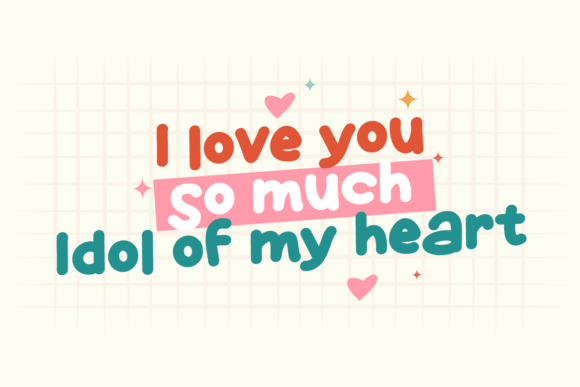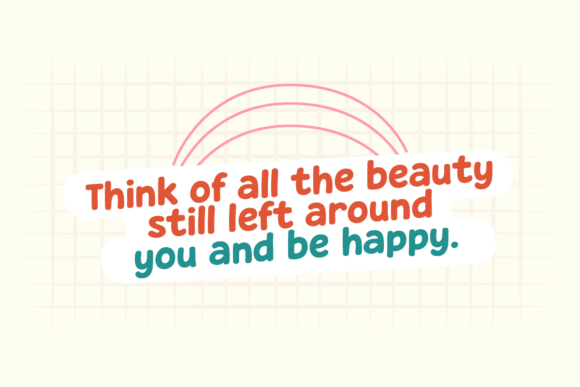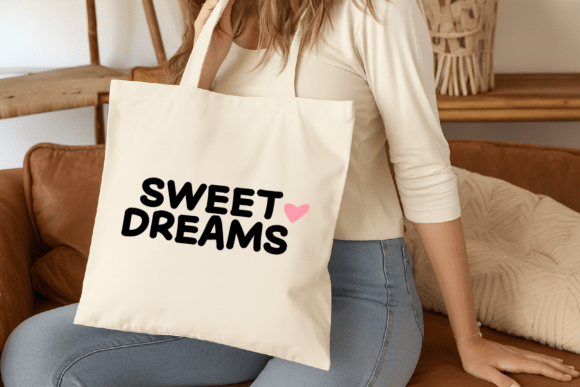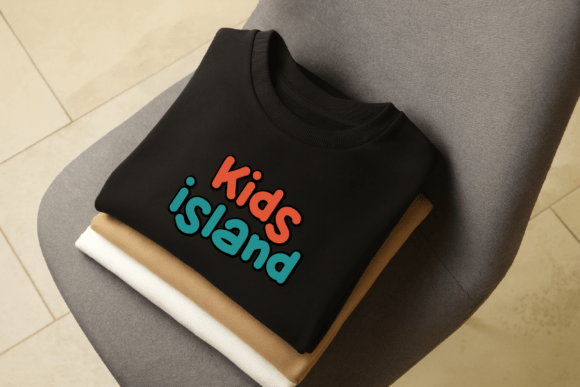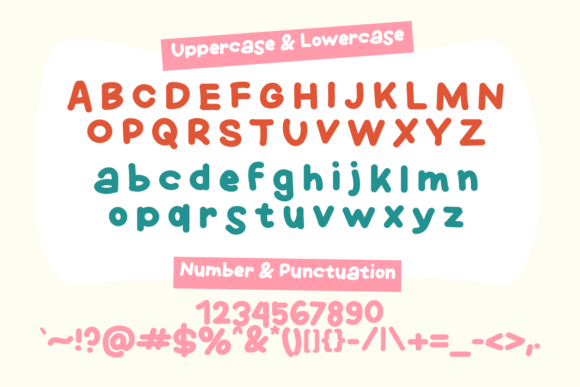
Introduction to Kids Island Font
Kids Island is a cute, bold, and playful handwritten display font that brings joy and creativity to any project.
Designed with soft curves and friendly shapes, this font is perfect for kid-themed designs, crafts, classroom projects, and cheerful branding Its bubbly style makes every word look warm, fun, and full of personality.
Key Features of Kids Island Font